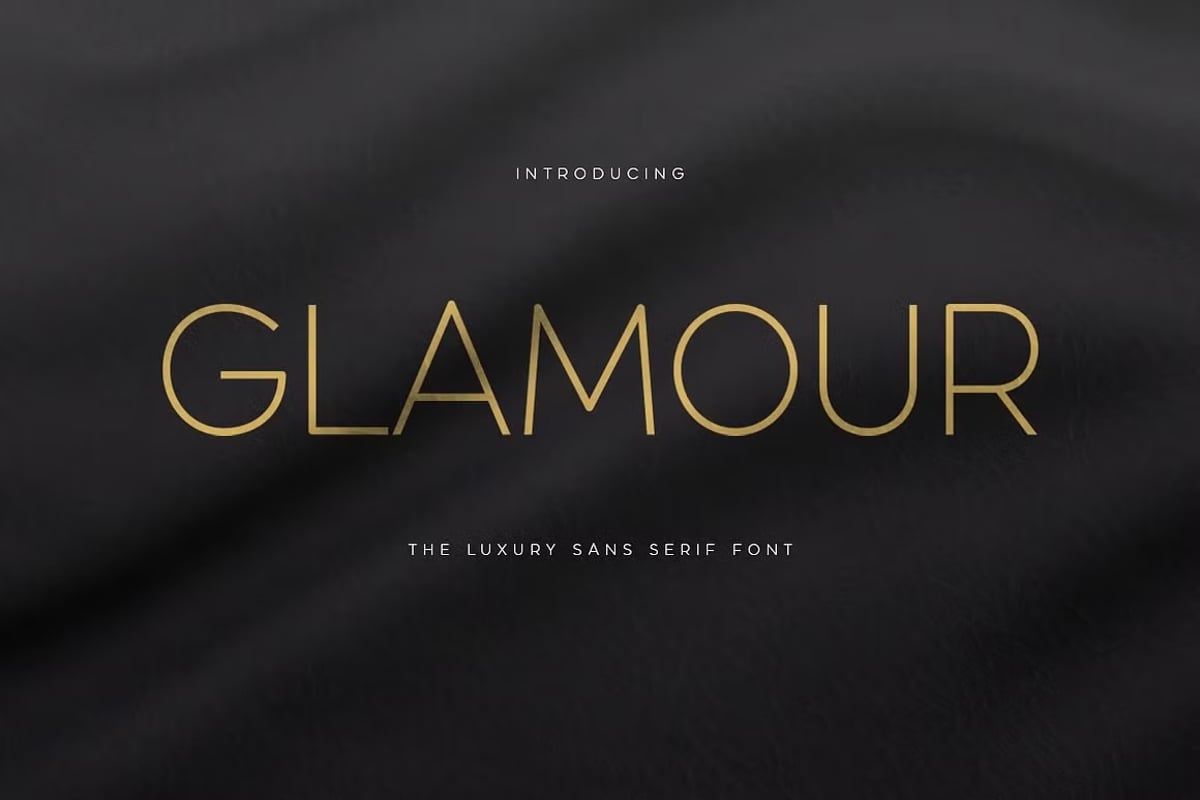
GLAMOUR - Luxury Sans Serif Font
Elevate your luxury projects with Glamour - a sophisticated sans serif font that exudes elegance and modern class. This meticulously crafted typeface brings a unique blend of luxury and contemporary style to your designs. Perfect for high-end magazine layouts, premium social media content, sophisticated branding projects, upscale logos, and any creative work that demands an elegant, luxurious touch. Complete character set includes: Full uppercase and lowercase alphabet Multilingual character sup...